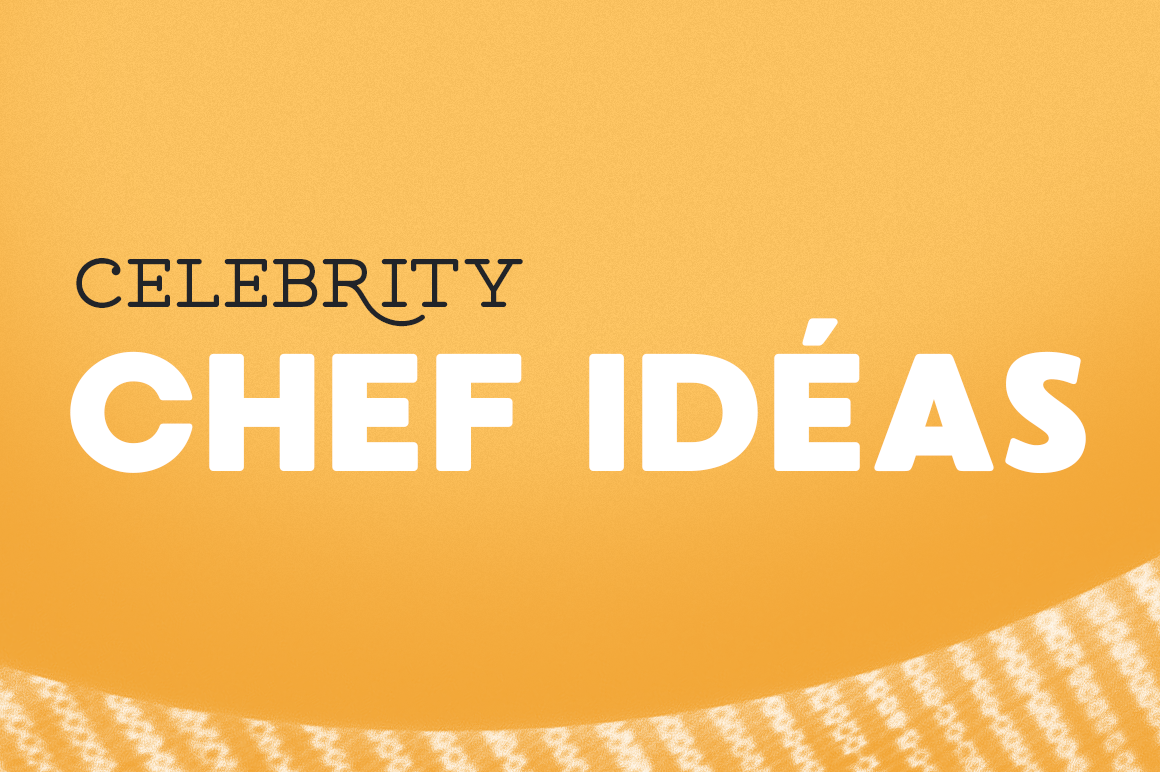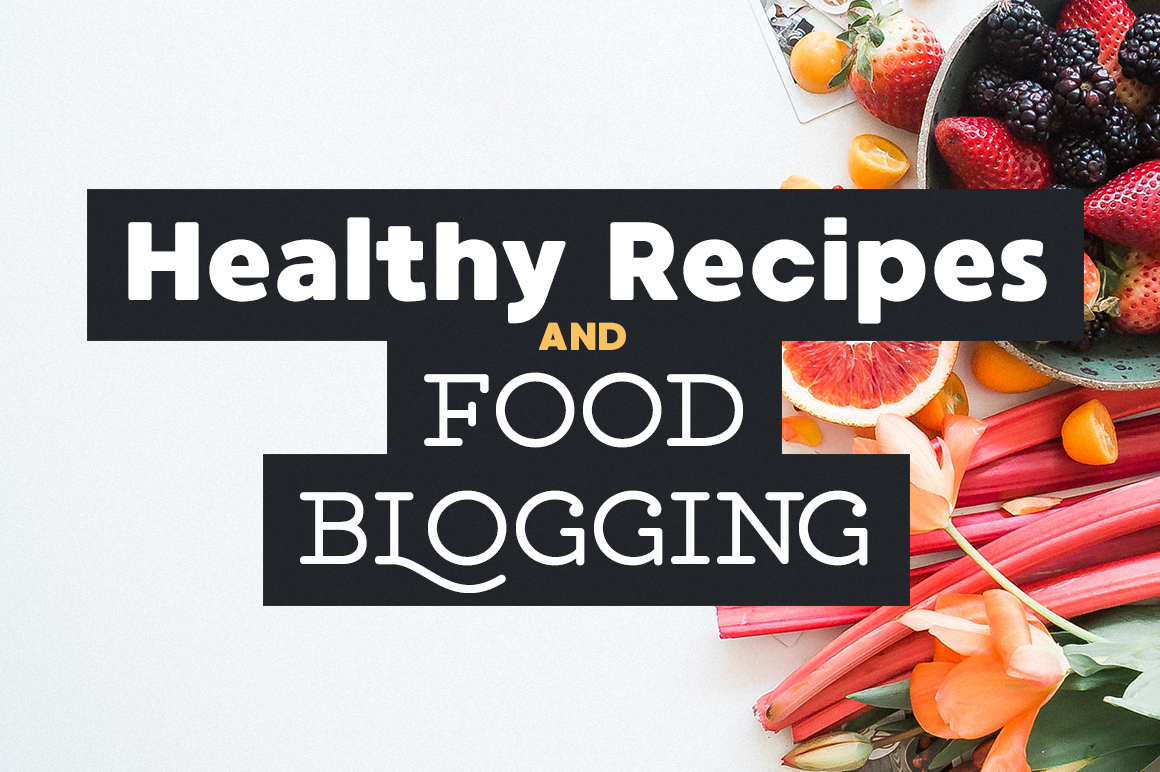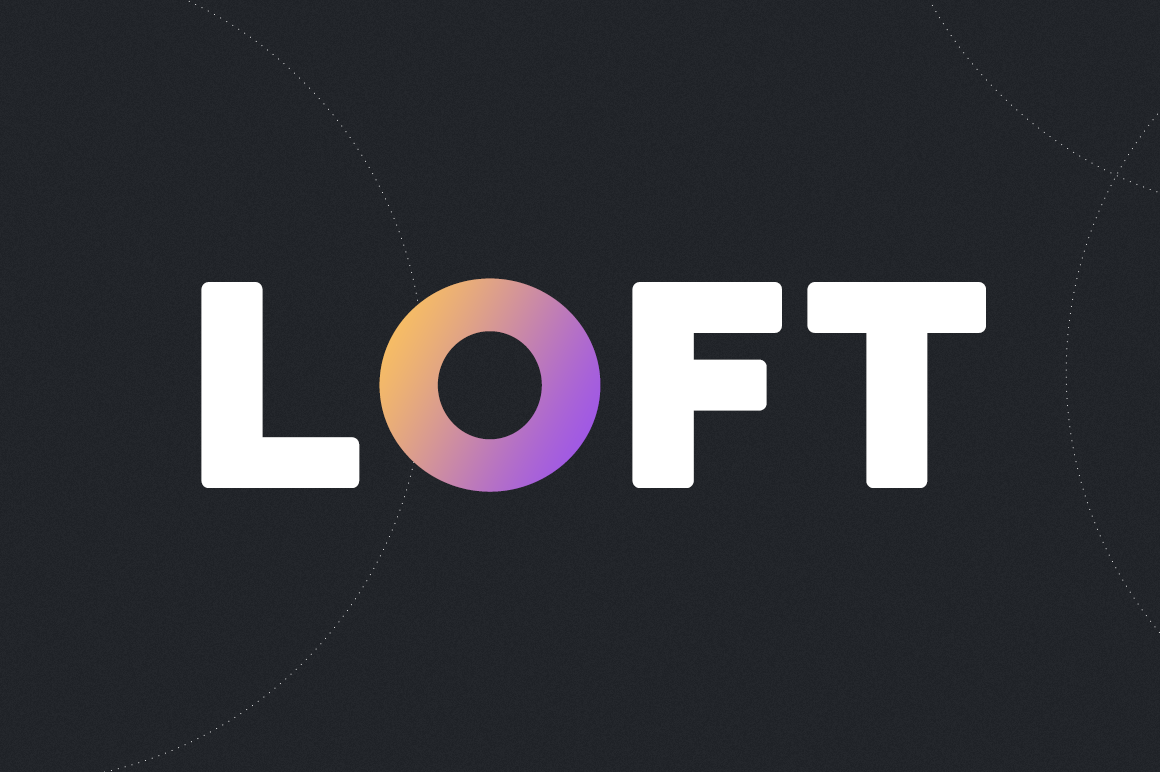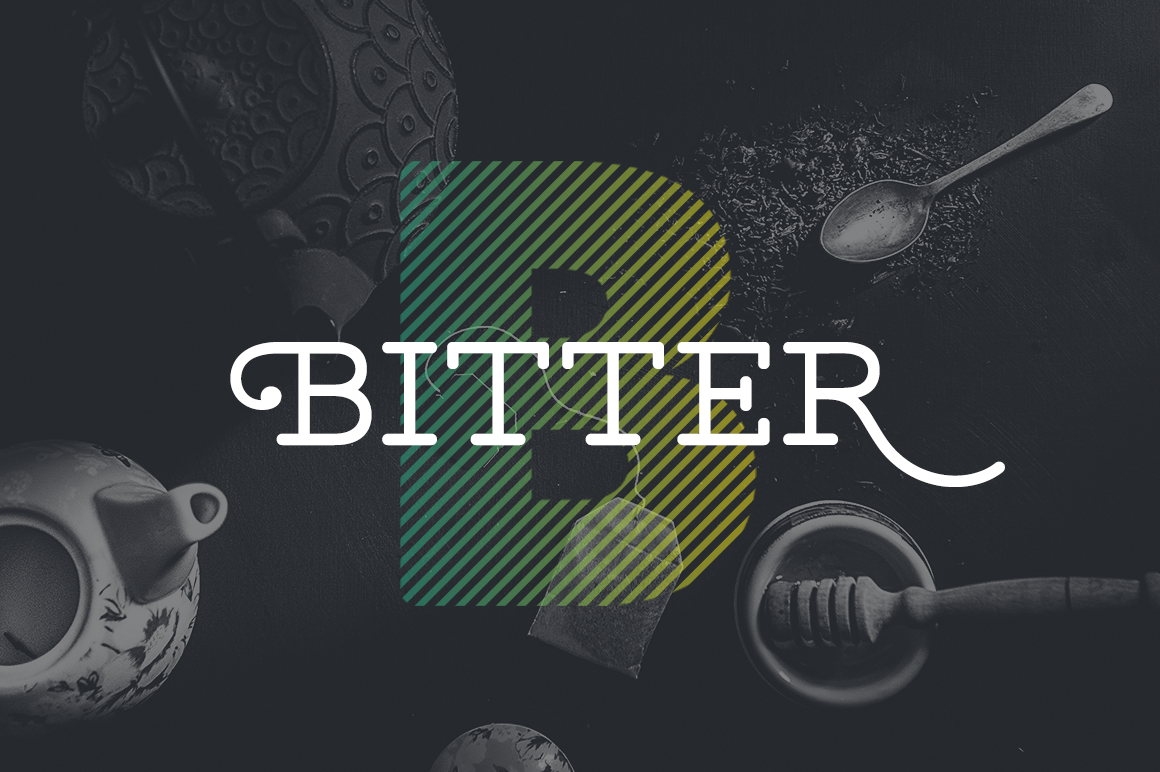
Made Waffle Free Font
Made Waffle Free Font is ideal for creating logos, headings. Applicable in the design of restaurants and cafes. Made Waffle Free Font are two fonts created for combinations of your ideas. This free typeface was designed by a talented MadeType. If you like it don’t forget to check out the full version.